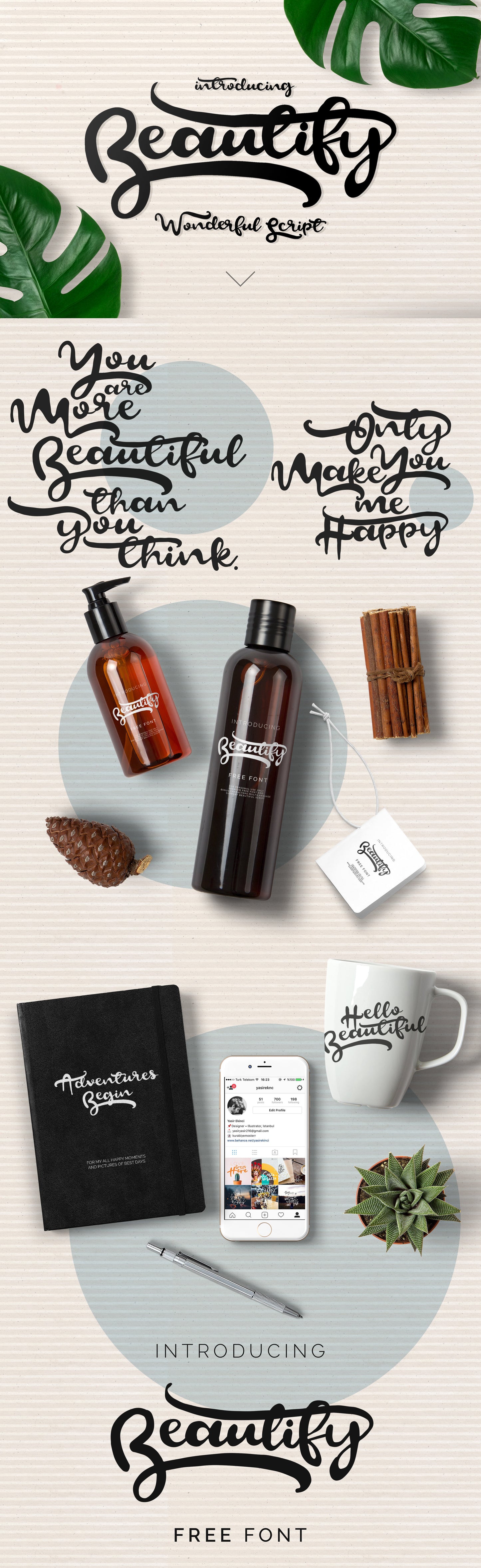
Free BEAUTIFY - SCRIPT FONT
Free beautify - script font for any designer that is looking to display their design professionally. Pixel Surplus has created this amazing and beautiful free font. This is absolutely fancy font so you can easily make world-class designs.